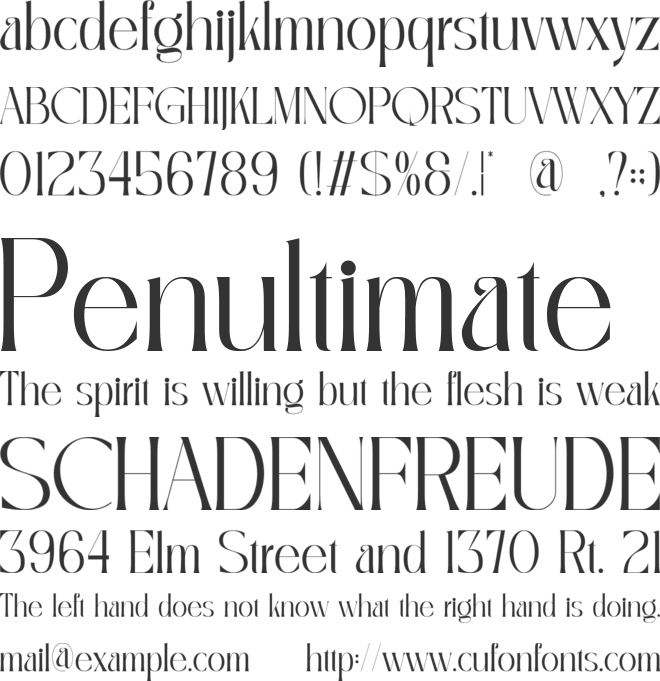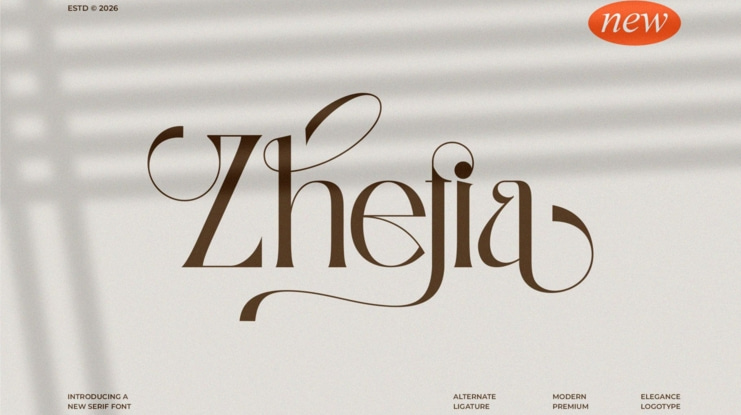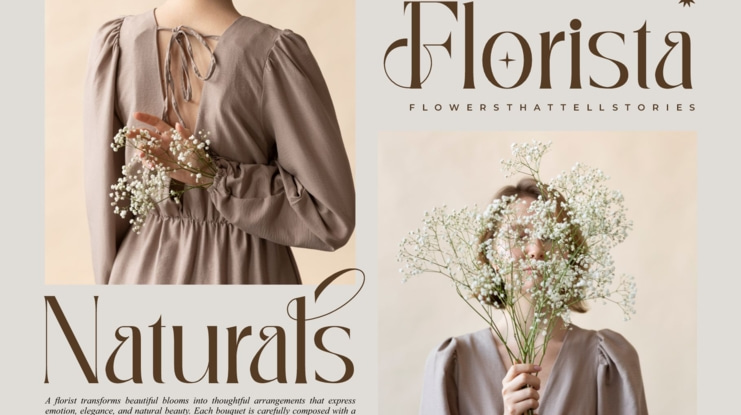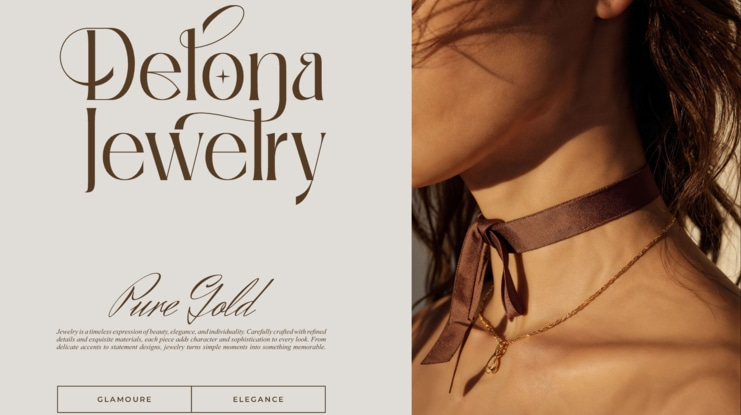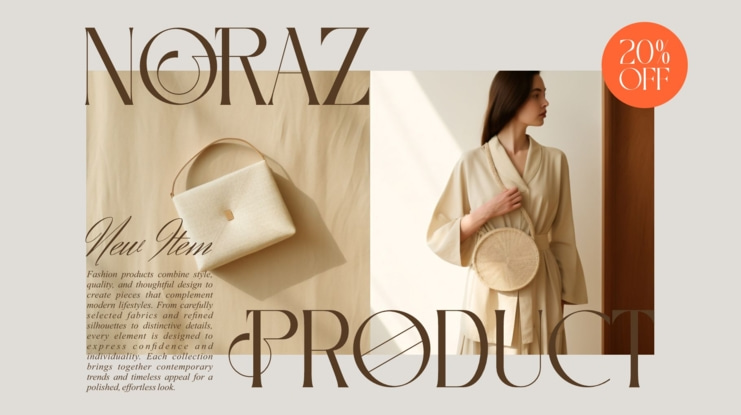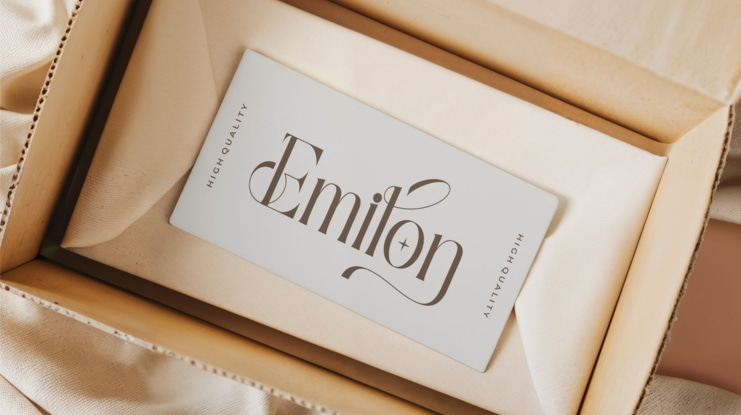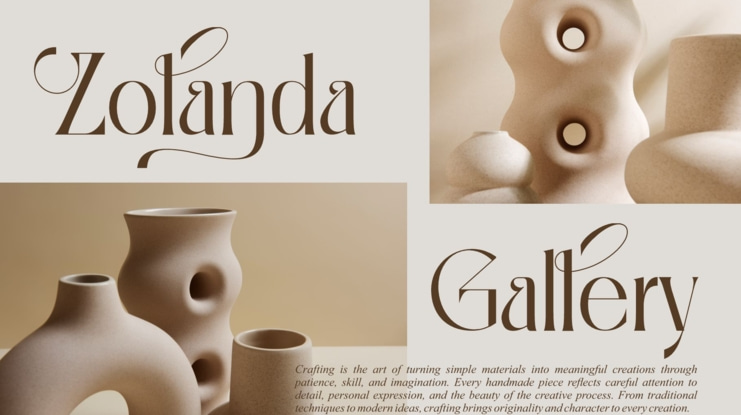
Zhetia Font
Zhetia is a cinematic luxury font designed to bring elegance and sophistication to your high-end design projects. Inspired by the timeless beauty of classic cinema, Zhetia combines modern aesthetics with a touch of vintage glamour. Ideal for creating stunning logos and refined branding materials, this font is perfect for designers who want to make a bold statement with their work..
- Ligature
- Uppercase and lowercase
- Numbering and Punctuation